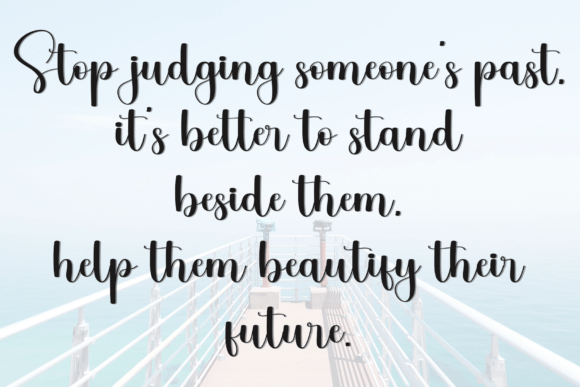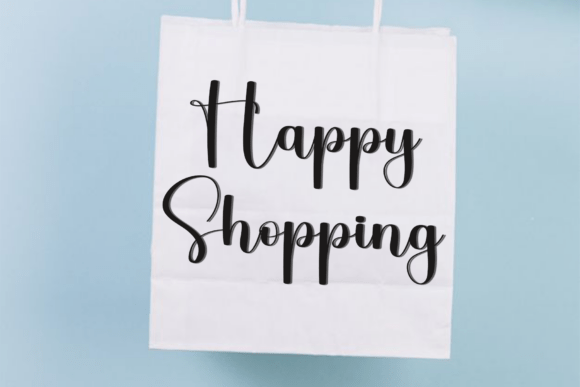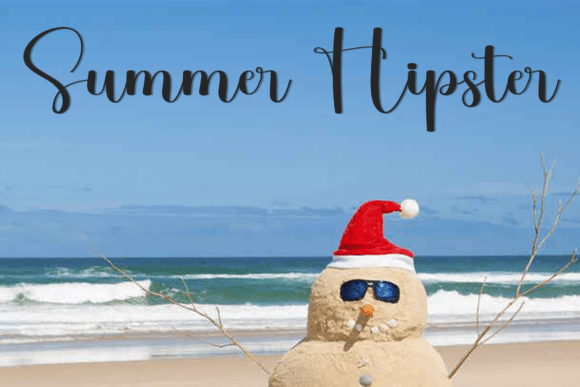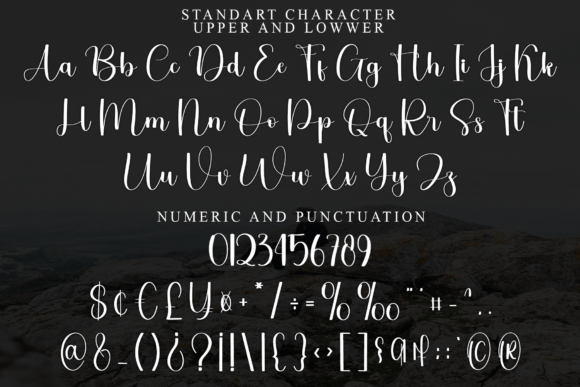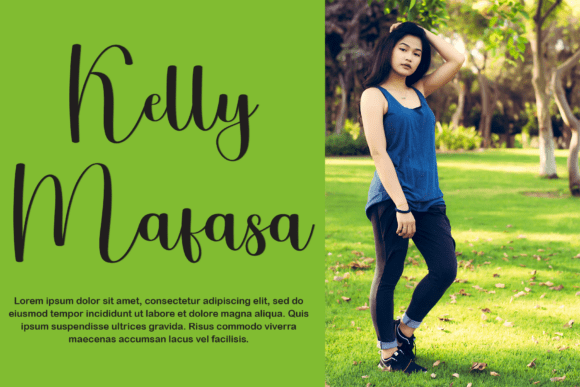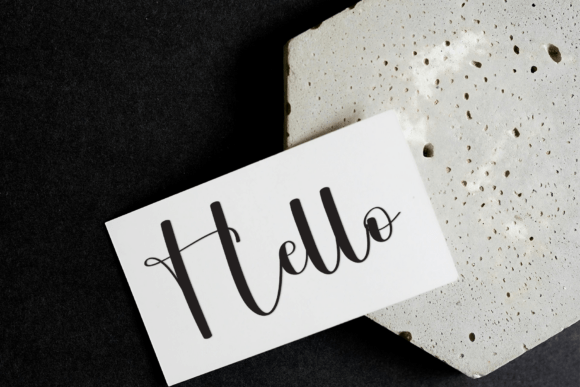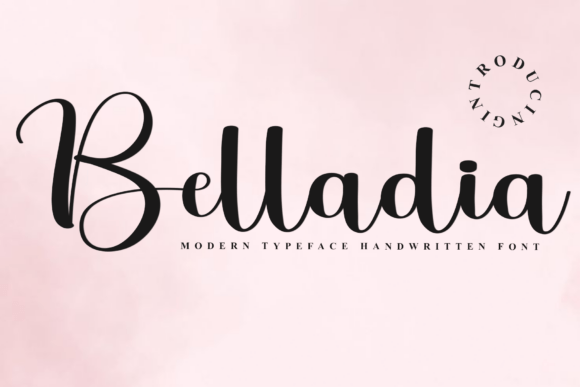
Belladia Font: Elevate Your Designs with a Unique and Eye-Catching Typeface
In the world of typography, a font can make all the difference in the success of a design project. Whether you’re a professional designer, crafter, or simply a creative enthusiast, finding the right font can be a daunting task. That’s where Belladia Font comes in – a beautiful and eye-catching typeface that is sure to elevate your designs with its soft, unique touch.
The Distinctive Character of Belladia Font
Belladia Font is designed with a special character that sets it apart from other fonts. Its distinctive strokes give it a meaningful and versatile quality, making it perfect for a wide range of design projects, crafts, and other creative works. With a variety of characters to choose from, you can add a personal touch to your designs and make them stand out from the crowd.
Ideal for a Wide Range of Products
Belladia Font is ideal for a wide range of products, from digital art and graphic designs to handmade crafts and DIY projects. Its unique and eye-catching design makes it perfect for:
- Handmade cards and invitations
- Digital art and illustrations
- Graphic designs and prints
- Crafts and DIY projects
Enhance Your Designs with Belladia Font
Belladia Font is designed to enhance your designs and make them appealing to a wide range of audiences. Its soft, unique touch adds a personal and creative element to your work, making it perfect for designers and crafters who want to add a special something to their projects. With Belladia Font, you can:
- Create stunning graphic designs and prints
- Add a personal touch to your handmade crafts and DIY projects
- Develop a unique brand identity with custom logos and branding materials
- Make your social media graphics and posts stand out
In conclusion, Belladia Font is a beautiful and eye-catching typeface that is sure to elevate your designs with its soft, unique touch. With its distinctive strokes, versatility, and compatibility, it’s perfect for a wide range of design projects, crafts, and other creative works. Whether you’re a professional designer, crafter, or simply a creative enthusiast, Belladia Font is the perfect choice for adding a personal and creative element to your work.